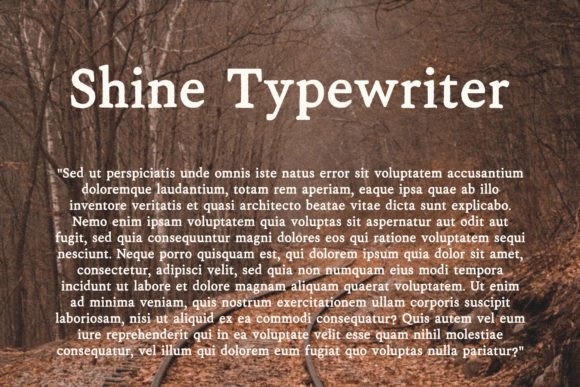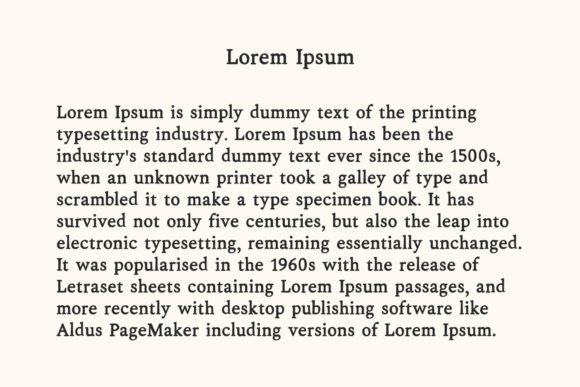
Shine Typewriter Font
Shine Typewriter is a funky, creative and thematic handmade typewriter font that will add a retro or forensics style to your design projects. No matter the topic, this font will be an incredible asset to your fonts’ library, as it has the potential to elevate any creation.